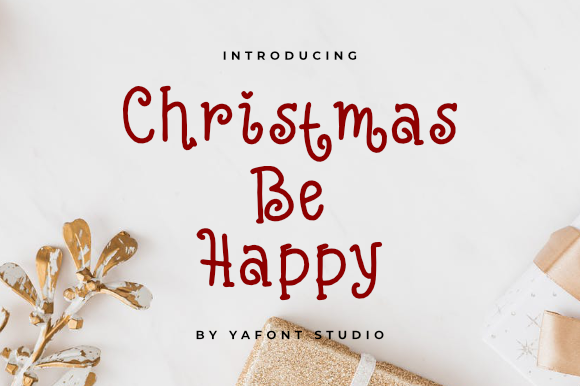
About Christmas Be Happy Font
Christmas Be Happy is a cute and warm handwritten font. Cute and a bit quirky, this font will look lovely on a variety of designs. Add it confidently to your projects, and you won’t be disappointed.